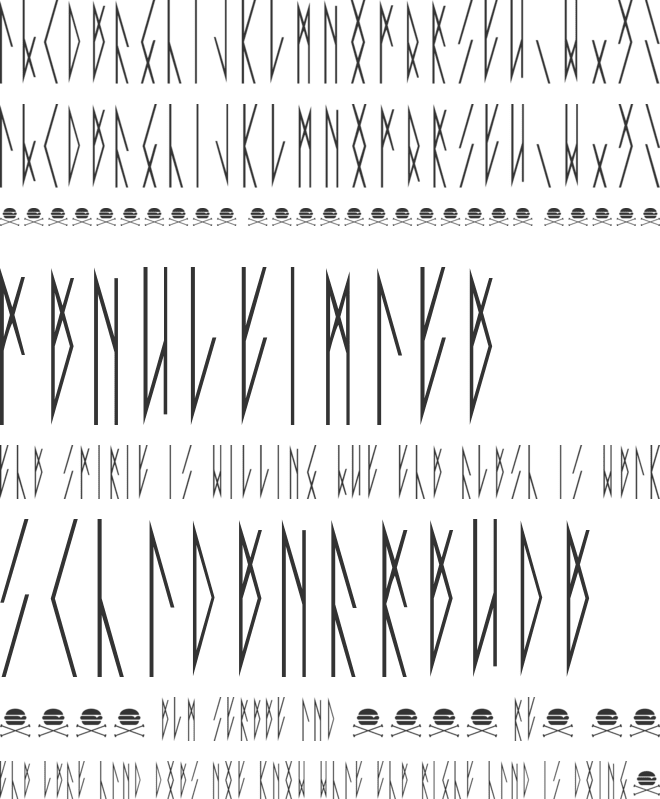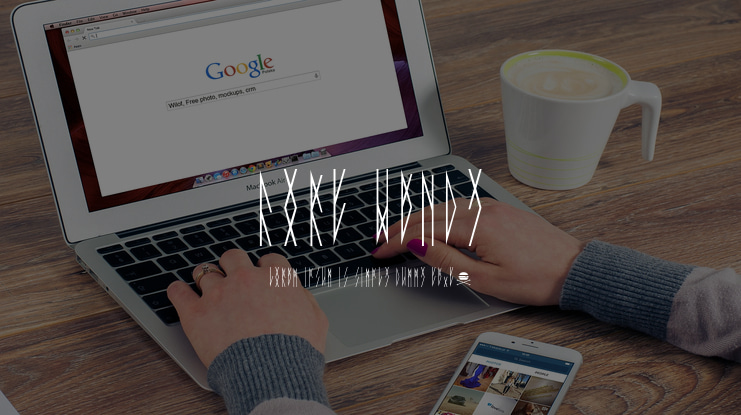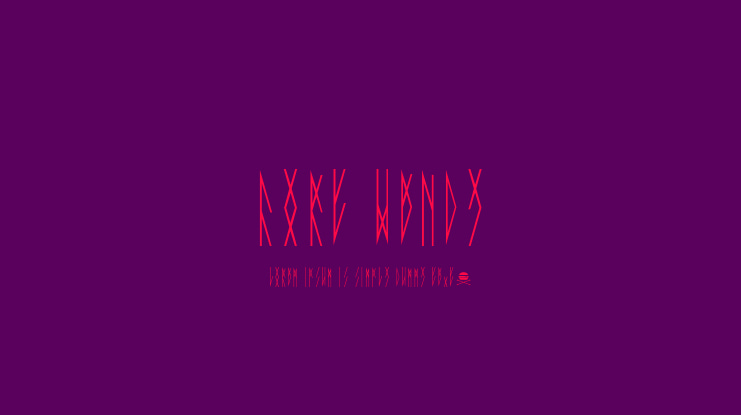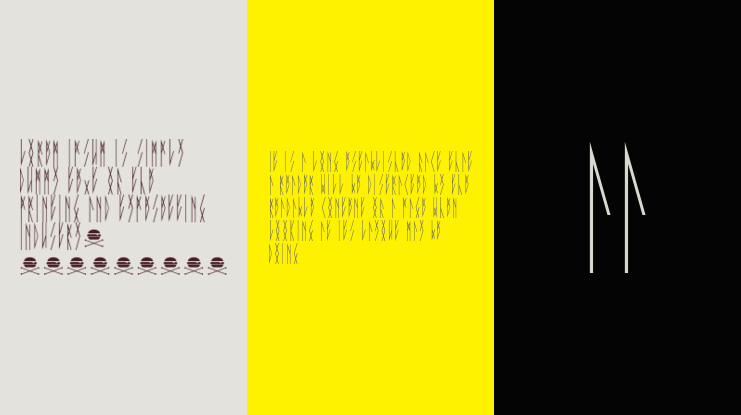
Fort Wendy Font
This was made as an experiment using fixed and strict symmetrical rules (although the symmetry messed up with the sharp edges because I was too lazy to adjust the size accordingly).
Below are the lines (rules) used to create this font.